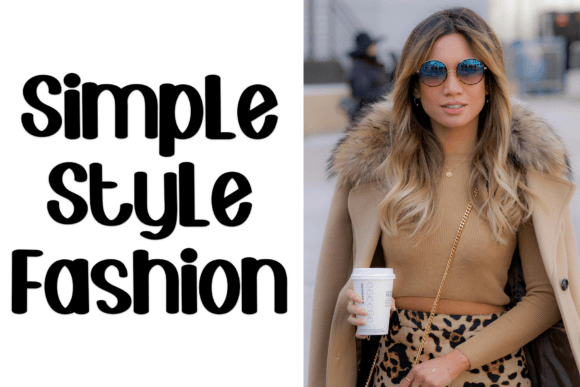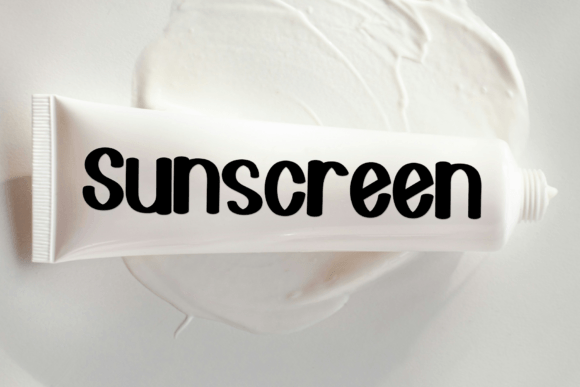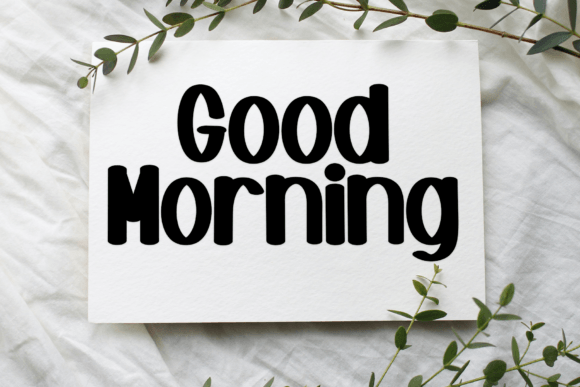
Comic Spooky Font
Comic Spooky is a fun, bold font that looks like it was drawn with a marker. Its playful design has a spooky twist, making it perfect for Halloween themes or any project that needs a lively and slightly spooky vibe!